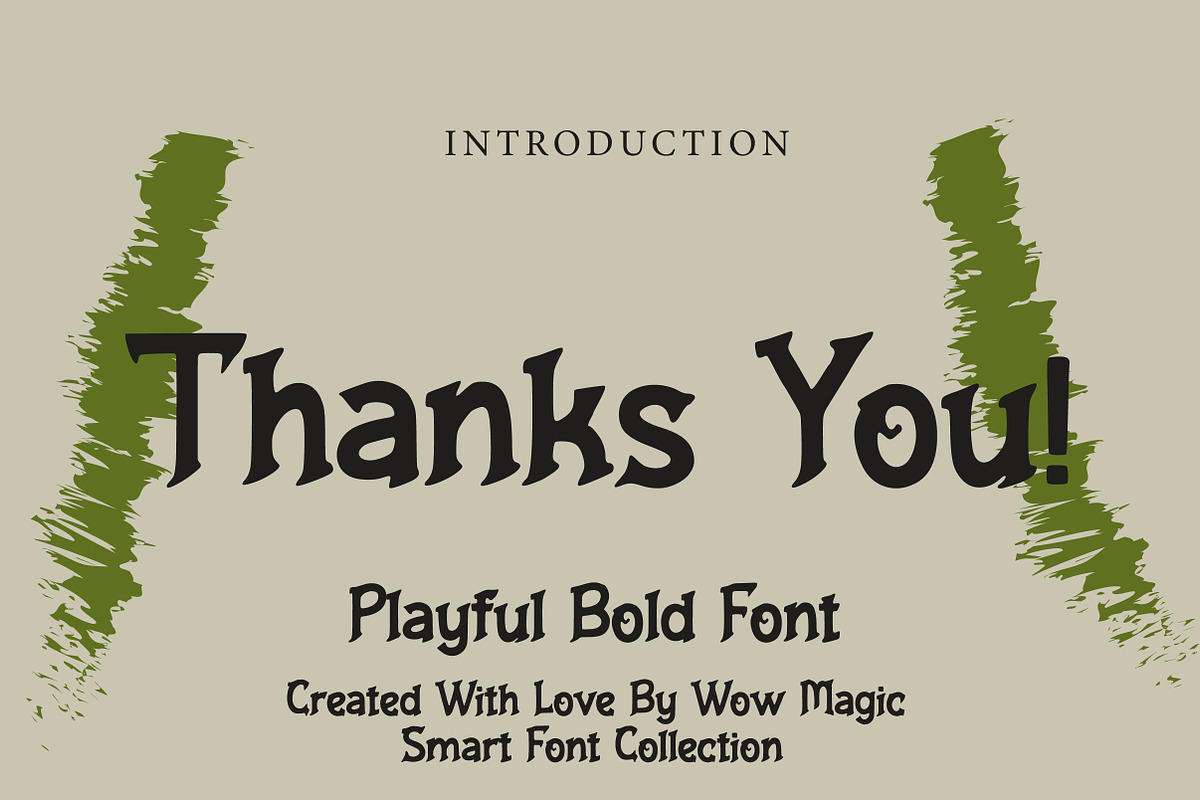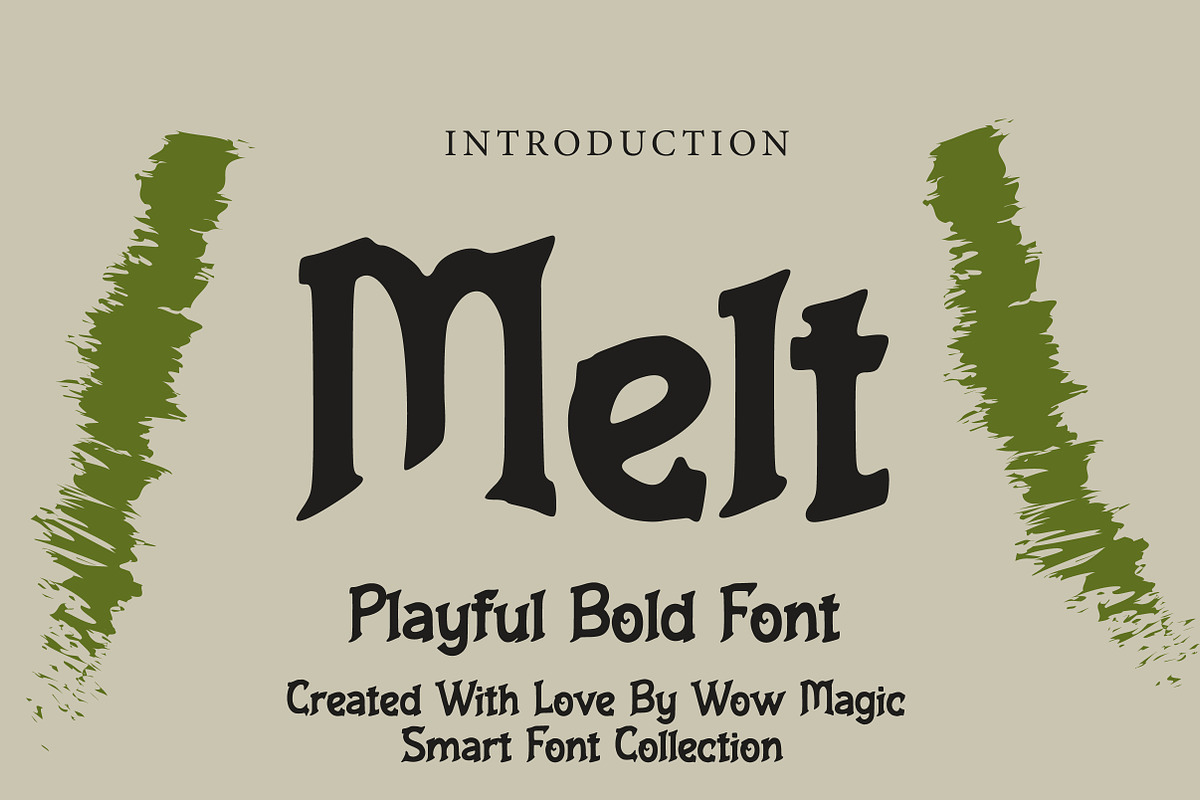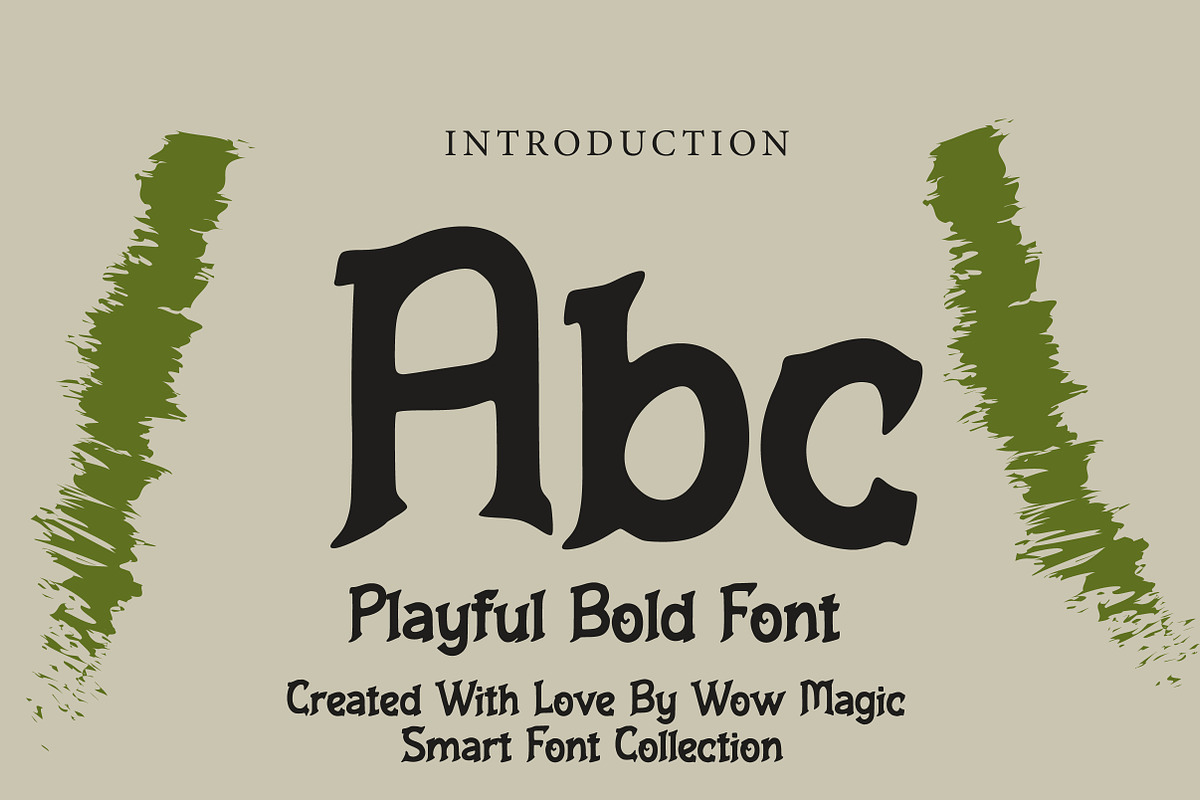
Melt
Melt is a striking gothic-inspired display font featuring bold strokes, sharp edges, and a strong medieval influence. Its dramatic letterforms and dark stylistic details create a powerful visual presence that instantly grabs attention.
This font is ideal for fantasy themes, medieval designs, logos, posters, gaming titles, book covers, and branding projects that require a bold and historic typographic style. The unique gothic structure gives your typography a mysterious and epic atmosphere.
Whether you’re creating fantasy branding, dark-themed posters, gaming graphics, or medieval-inspired titles, Melt delivers a distinctive and memorable typographic look that stands out in any design.